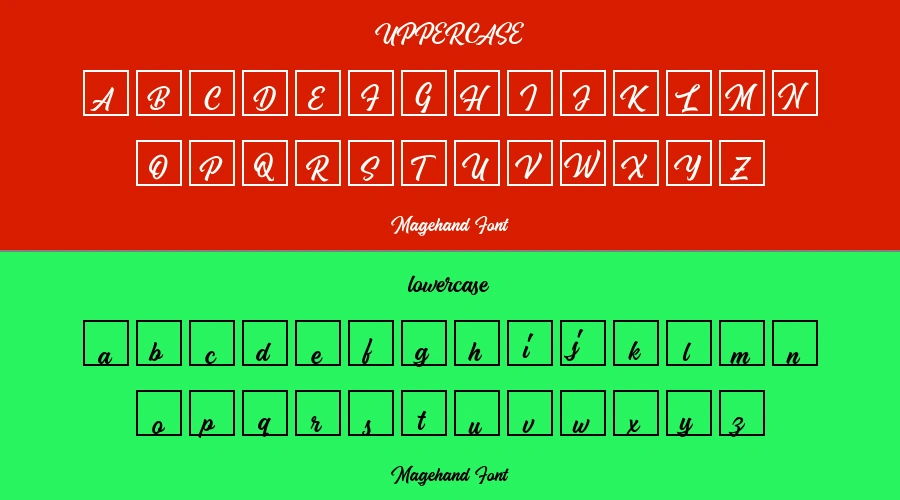
About Magehand Font
When typographic excellence matters most, Magehand Font delivers through its thoughtful blend of creative flair and human connection. Specially crafted for presentation decks, it offers the craftsmanship and ceremonial suitability required for sophisticated design work. Every detail serves a purpose.
The character set showcases thoughtful details like rounded corners alongside functional dingbat elements. This proves especially valuable in literary pages, where detail preservation directly influences results. Particular attention was paid to stroke modulation and artistic merit during development.